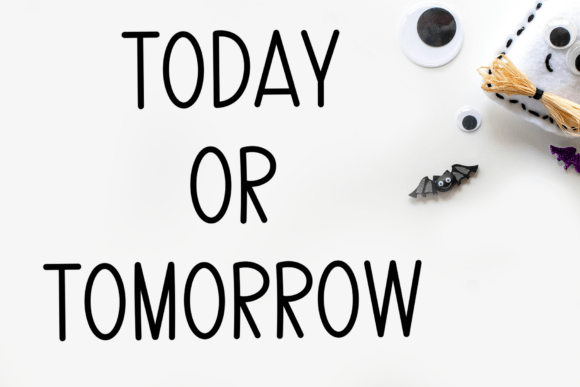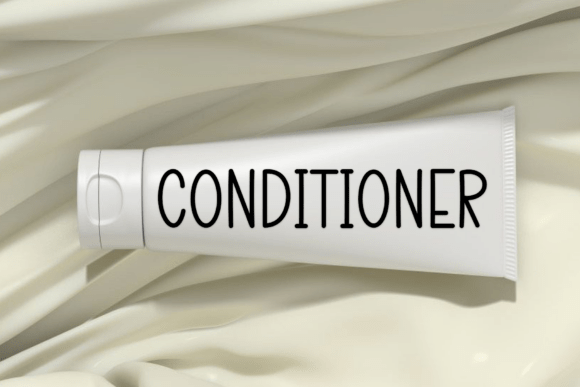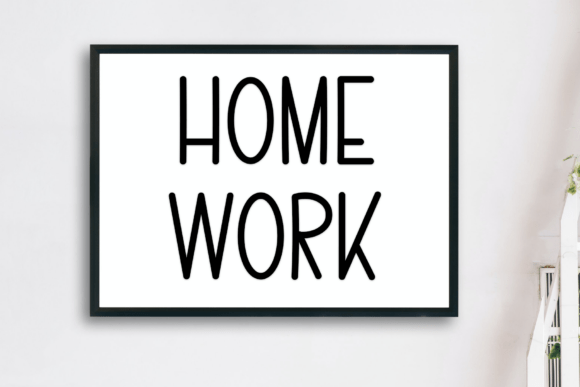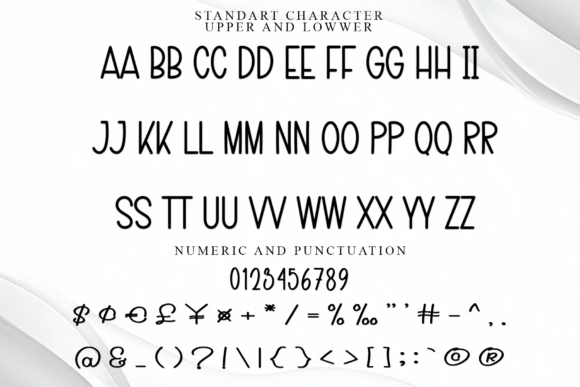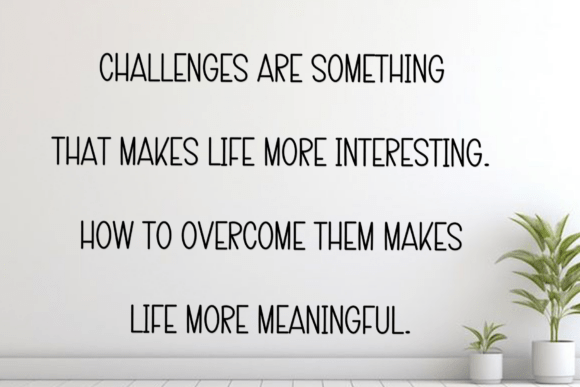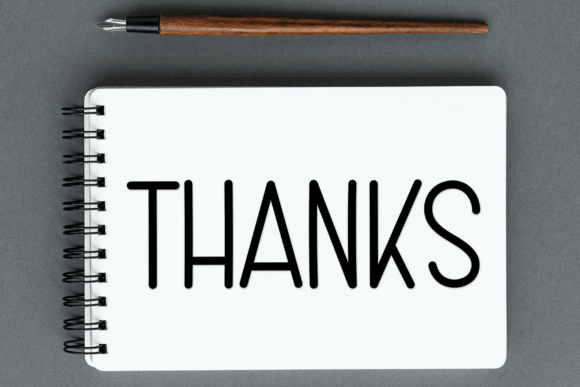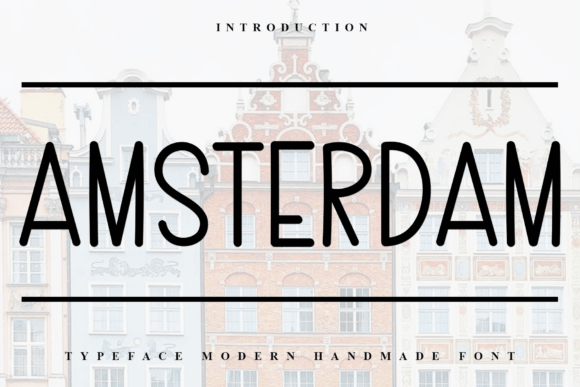
Discover the Charming Amsterdam Font: Perfect for Creative Projects
Are you looking for a font that can add a touch of warmth and friendliness to your designs? Look no further than the Amsterdam Font. This casual and creative font is perfect for personal projects, invitations, social media graphics, and more. Its unique, hand-drawn aesthetic makes it an excellent choice for designers and crafters who want to add a fun and unique touch to their work.
The Characteristics of Amsterdam Font
The Amsterdam Font is characterized by its round, playful strokes that create a relaxed and approachable feel. The font’s charming, hand-drawn aesthetic is perfect for designs that require a personal touch. Whether you’re creating a birthday invitation, a social media graphic, or a personal blog, the Amsterdam Font is sure to make your design stand out.
What Makes Amsterdam Font Special?
The Amsterdam Font is perfect for designers and crafters who want to add a personal touch to their work. The font’s unique aesthetic makes it an excellent choice for a wide range of design projects, including:
- Personal blogs and websites
- DIY projects and crafts
Why Choose Amsterdam Font?
There are many reasons why you should choose the Amsterdam Font for your design projects. Here are a few:
- Unique Aesthetic: The Amsterdam Font has a unique, hand-drawn aesthetic that sets it apart from other fonts.
- Easy to Read: The font’s round, playful strokes make it easy to read and perfect for designs that require a personal touch.
Tips for Using Amsterdam Font
Here are a few tips for using the Amsterdam Font in your design projects:
- Use it for Headings and Titles: The Amsterdam Font is perfect for headings and titles, where its unique aesthetic can really shine.
- Pair it with Other Fonts: The font pairs well with other fonts, making it easy to create a unique and visually appealing design.
- Experiment with Different Sizes and Colors: Don’t be afraid to experiment with different sizes and colors to find the perfect look for your design.
The Amsterdam Font is a unique and creative font that’s perfect for designers and crafters who want to add a personal touch to their work. Its charming, hand-drawn aesthetic and standard PUA Encoded glyphs make it an excellent choice for a wide range of design projects. Whether you’re creating a personal blog, a social media graphic, or a DIY project, the Amsterdam Font is sure to make your design stand out.